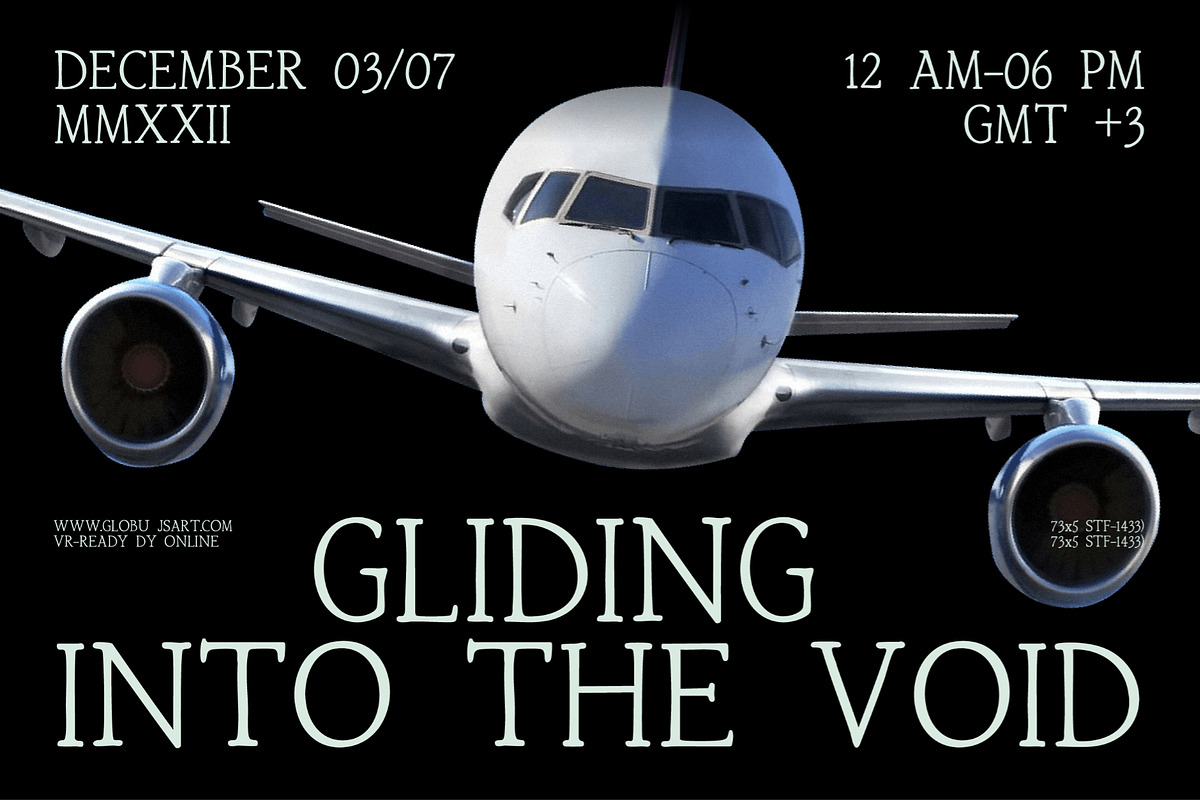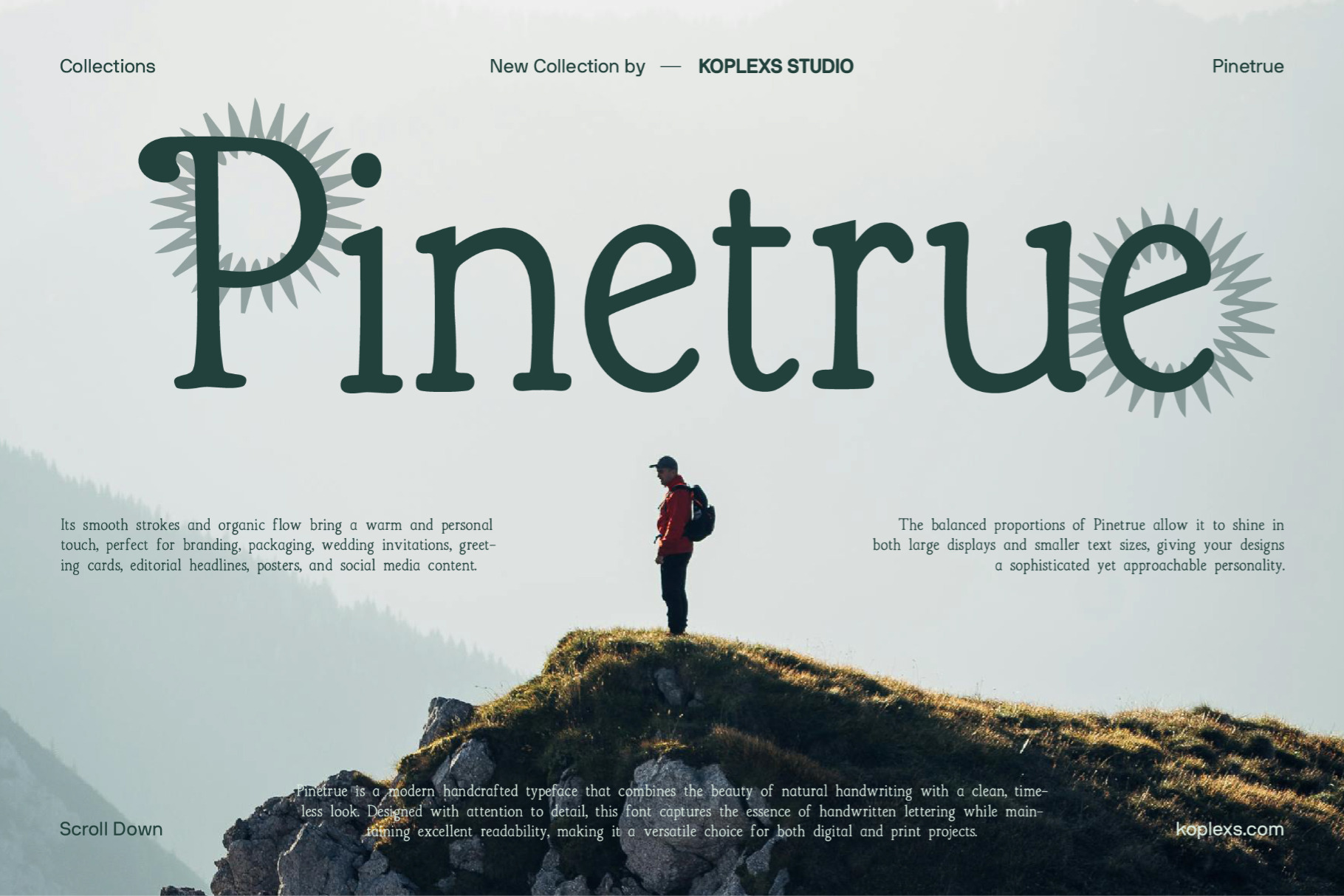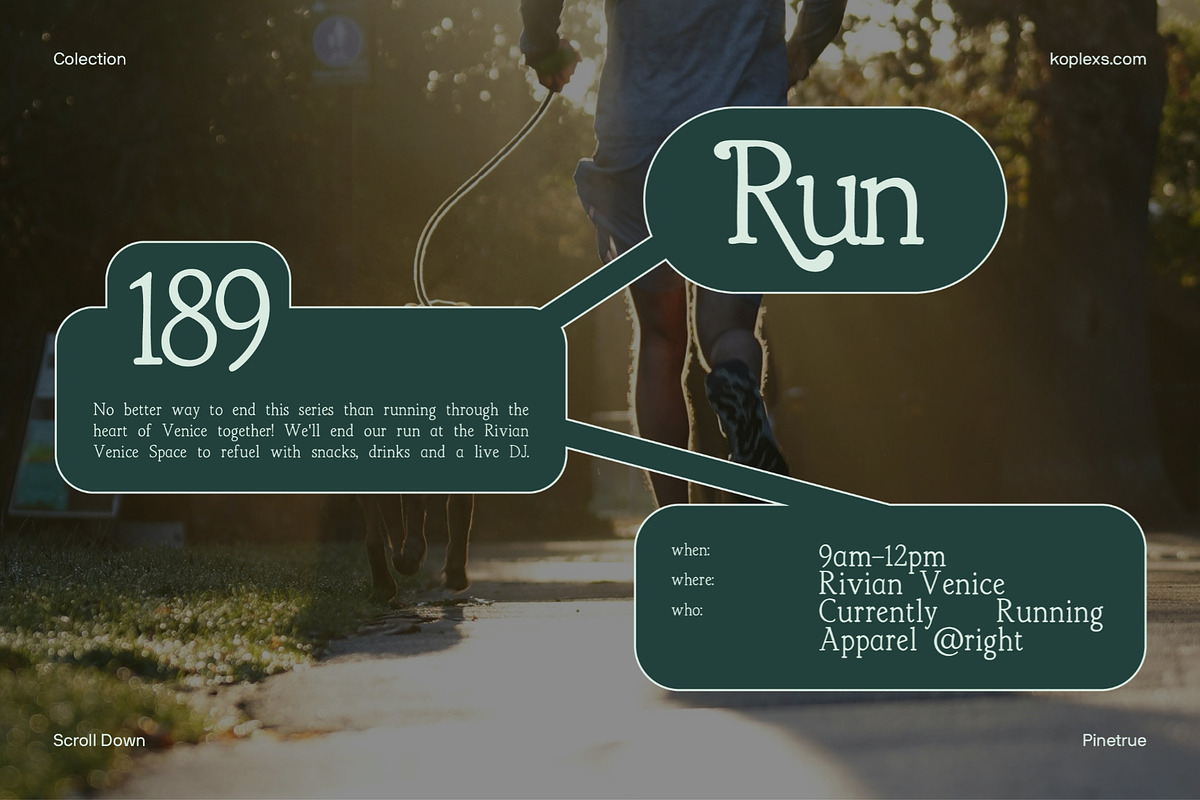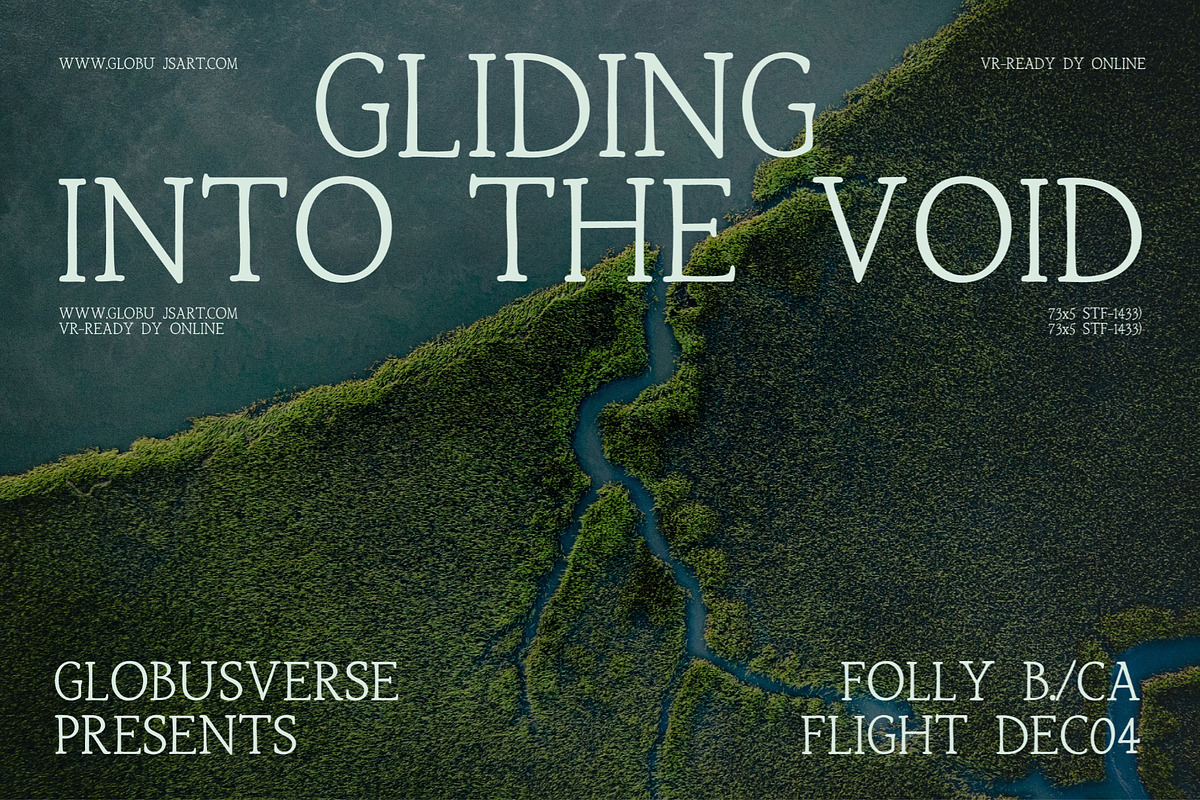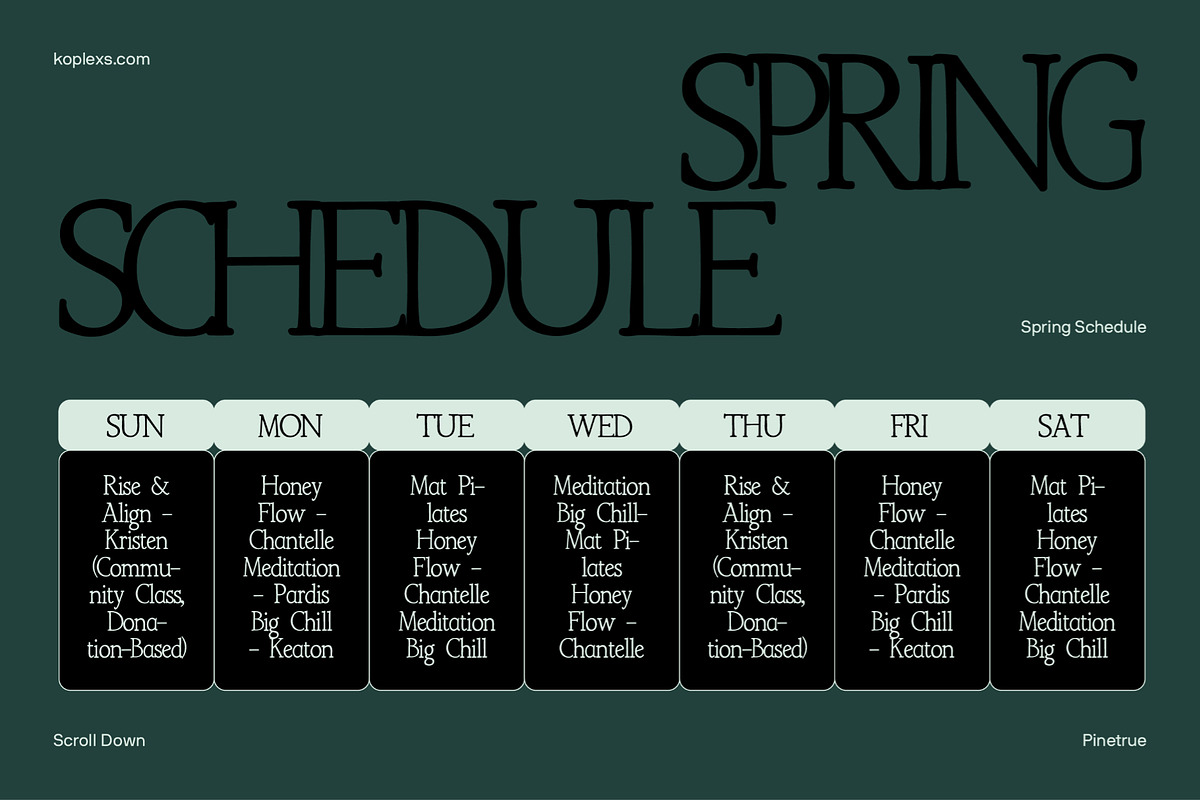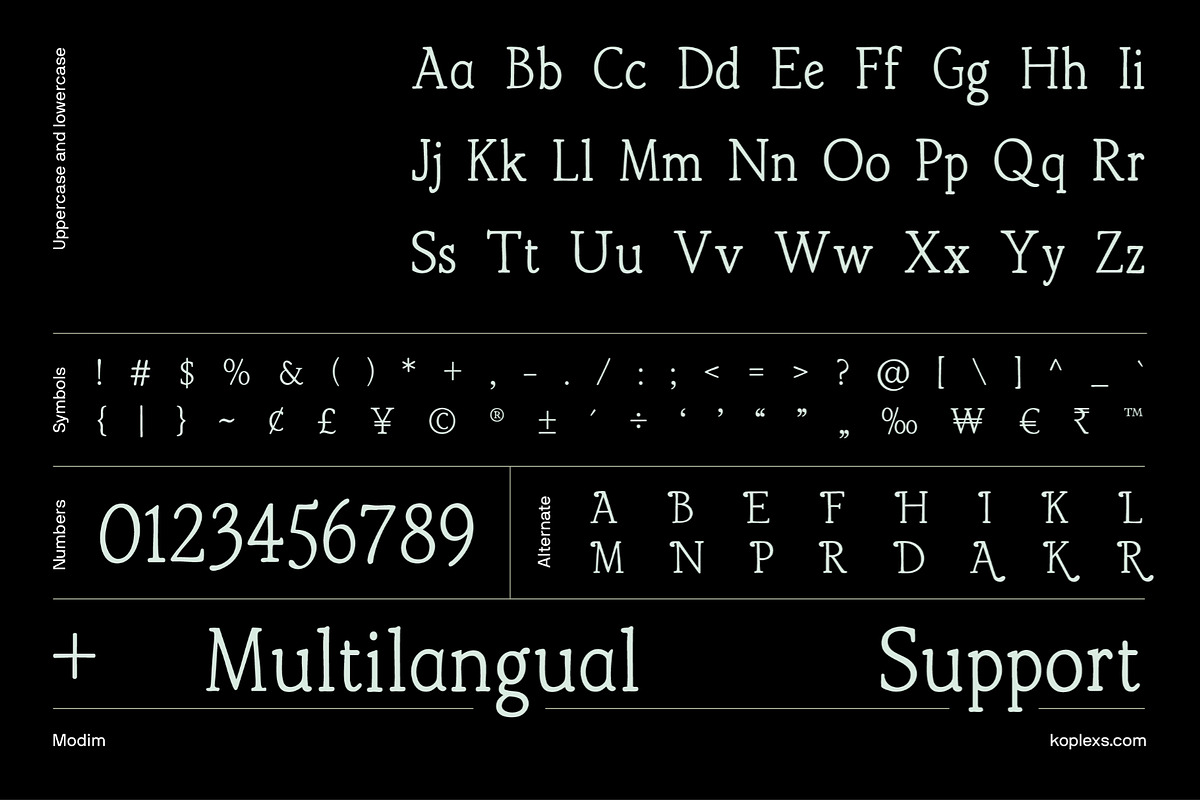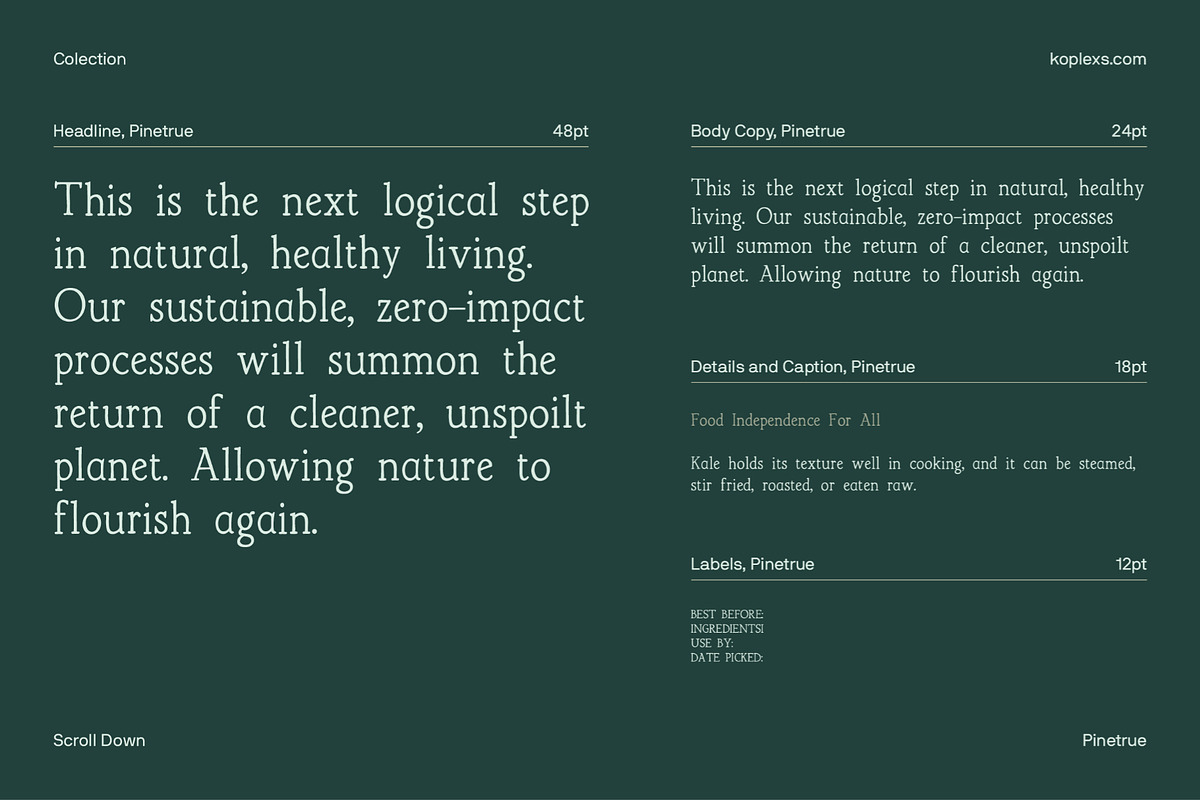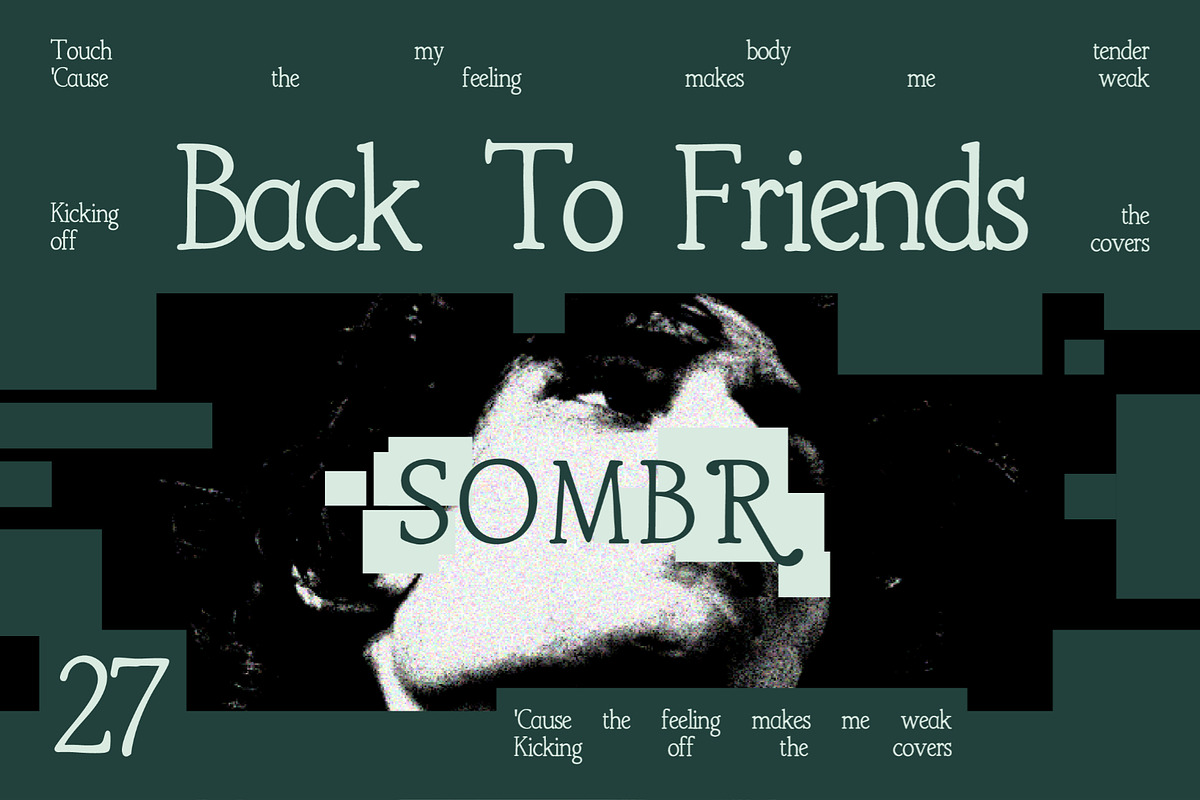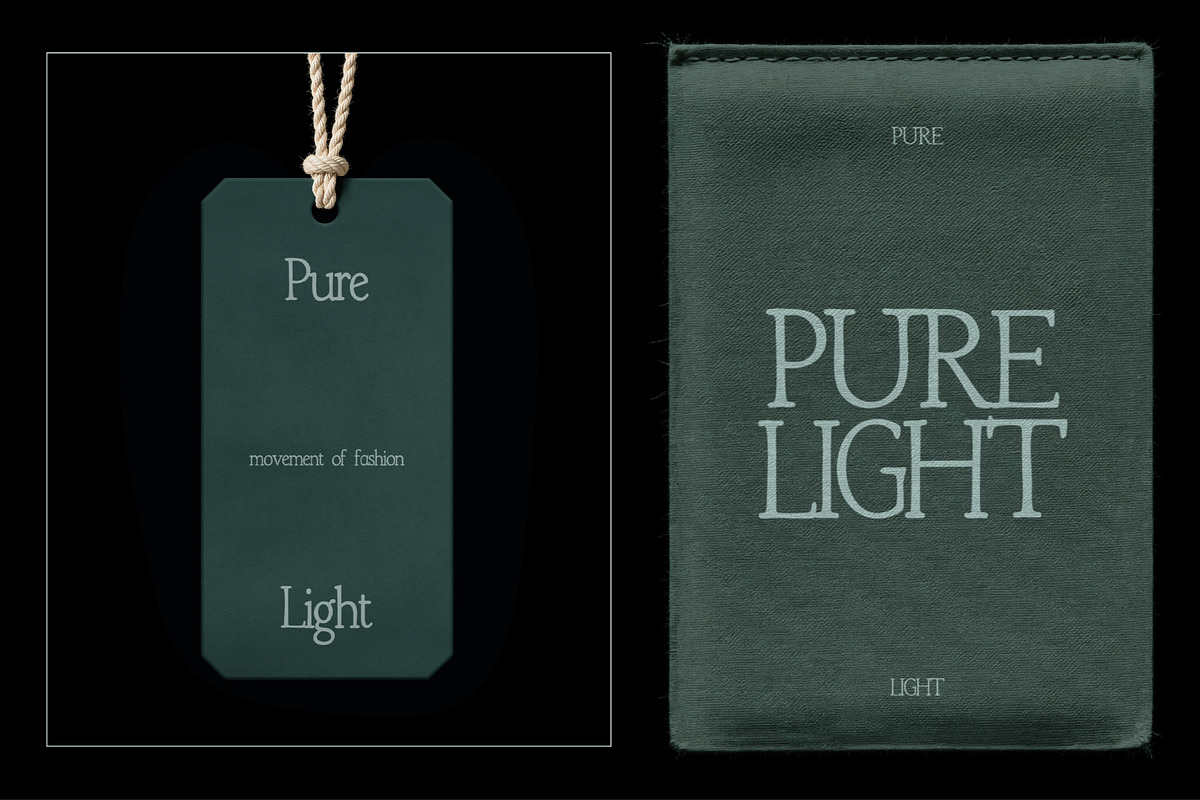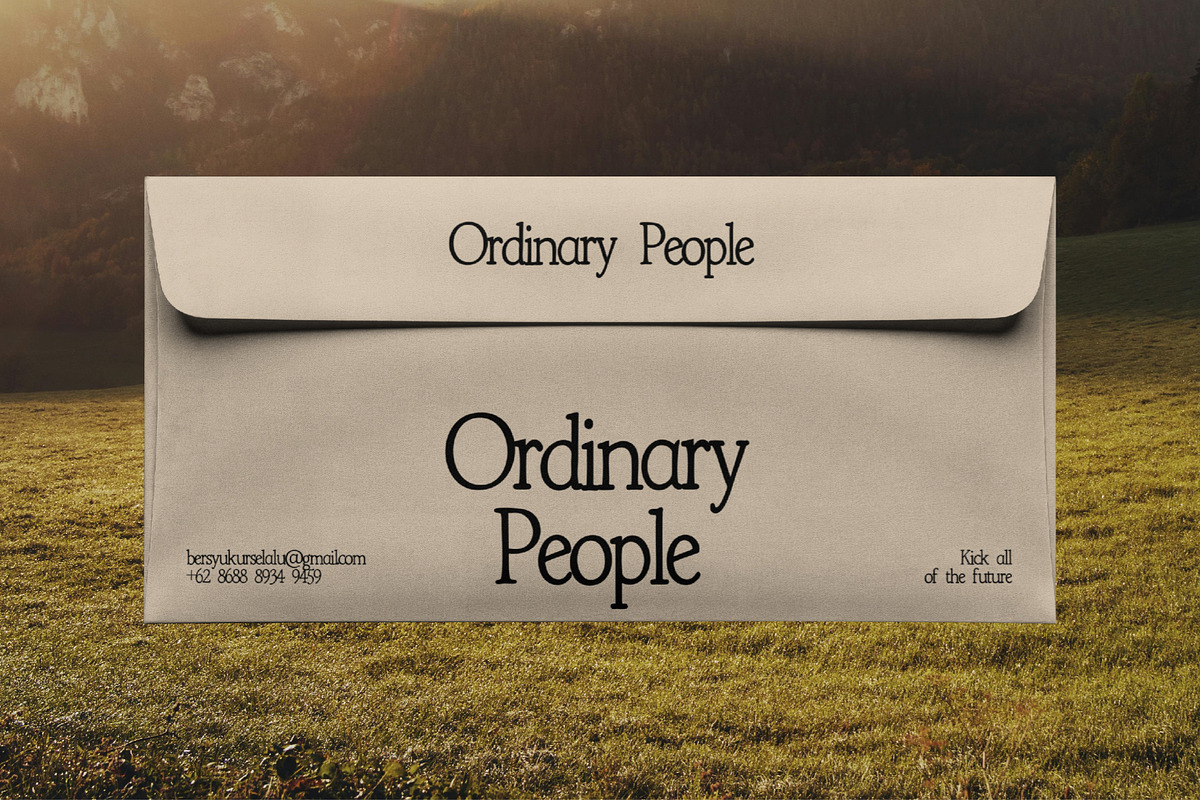
Pinetrue Font
Pinetrue is a handcrafted serif font that blends natural handwriting charm with timeless elegance. Designed with organic curves and refined details, it creates a warm, authentic, and sophisticated look for modern creative projects.
Perfect for branding, logos, packaging, editorial design, invitations, book covers, social media graphics, fashion brands, and lifestyle products.
Branding
Packaging
Editorial Layouts
Wedding Invitations
Fashion & Beauty Brands
Social Media Content
Luxury & Lifestyle Projects
Bring a natural, elegant, and memorable touch to your designs with Pinetrue Font.